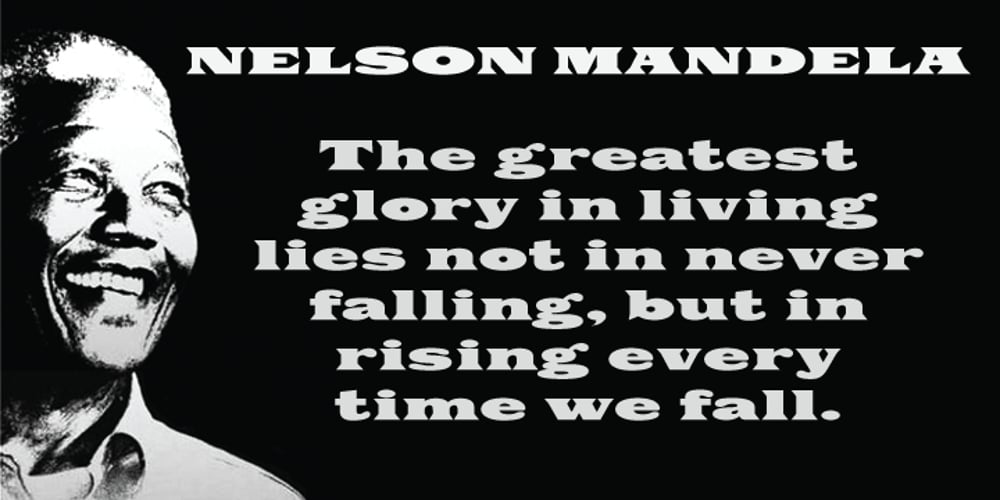
Mandelia
Mandelia font
Mandelia Font Family was designed by Alex Kaczun and published by Type Innovations. Mandelia contains 1 styles and family package options. Mandelia was created by Alex Kaczun, an American type designer, in 2010. The typeface was named in honor of Nelson Mandela, former president of South Africa, for his “shining example of the incredible strength of the human spirit to persevere in the face of adversity for the pursuit of freedom”. Mandelia is a strong, bold and wide-bodied serif typeface design, reminiscent of the great African landscape with its diverse animal life. It’s easy to see the influence of the ‘Rhino’ sharp serifs and ‘Elephant’ size stems and proportions. The font commands attention and respect. Great for headlines that pack a punch, logos, posters, and signage. And because it was well designed, it can even be used in body copy at various point sizes. Mandelia is available in Opentype format for both Mac and PC, and comes complete with true drawn small caps, old style figures and Unicode Latin 1252 and Central European 1250 character sets. It has everything you need to get the job done.